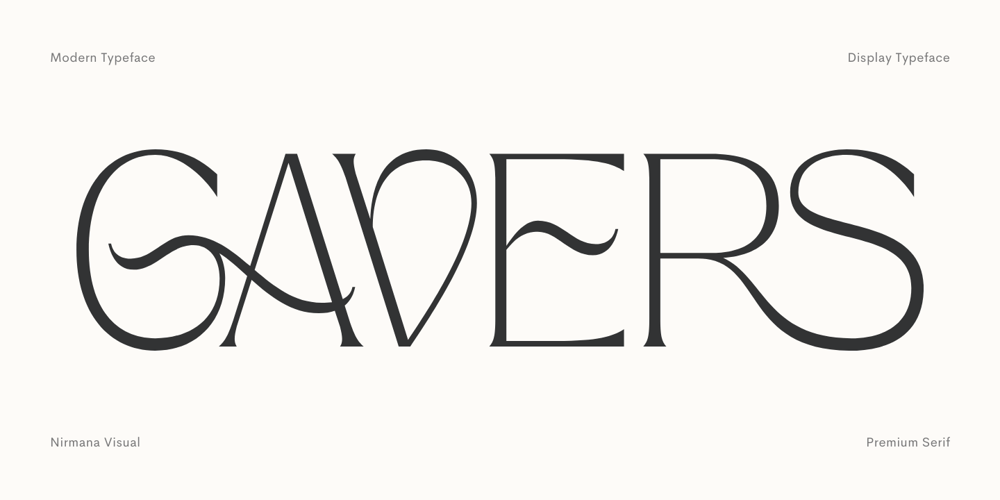
Gavers Font Family was designed by Sigit Dwipa and published by Nirmana Visual. Gavers contains 1 styles and family package options. Introducing our sophisticated modern serif ligatures font, crafted to add an extra touch of elegance and sophistication to your designs. With its intricate ligatures and unique design, this font is perfect for creating eye-catching headlines, logos, and branding.